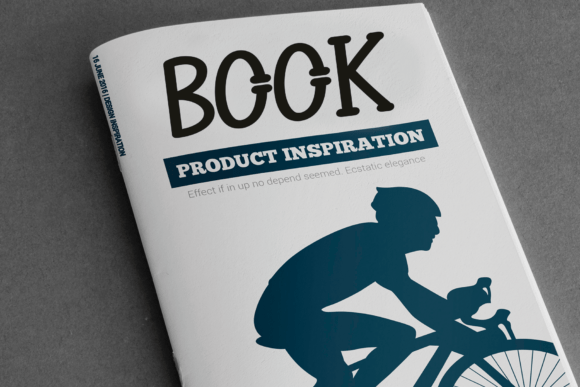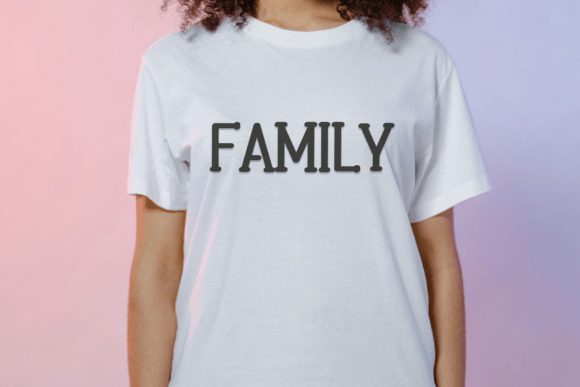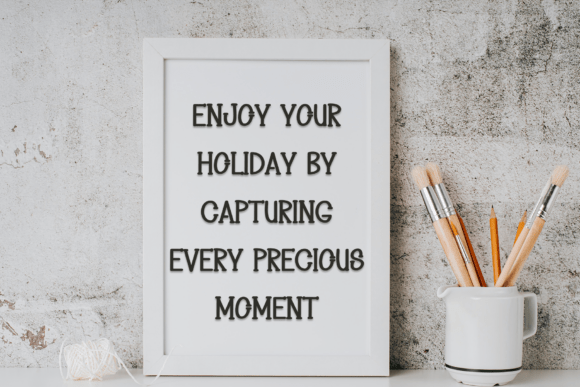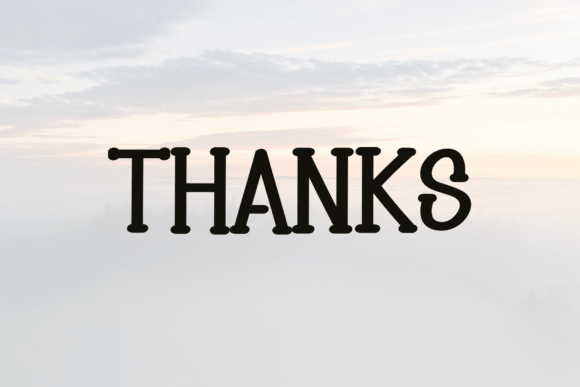
Introducing Heavenly Font: The Perfect Blend of Luxury and Casual Elegance
Are you a designer or crafter looking for a font that exudes luxury and elegance while still maintaining a casual and relaxed feel? Look no further than Heavenly Font, a beautiful handwritten font that is sure to elevate your designs to the next level. In this article, we’ll take a closer look at Heavenly Font, its unique characteristics, and how you can use it to create stunning designs for various applications.
What is Heavenly Font?
Heavenly Font is a handwritten font that looks like it was drawn with a marker. Its relaxed and sporty feel makes it an ideal choice for designs that require a touch of elegance and sophistication. The font’s casual yet luxurious vibe is perfect for a wide range of applications, from branding and logos to wedding supplies, greeting cards, and marketing promotions.
Unique Characteristics of Heavenly Font
So, what sets Heavenly Font apart from other fonts? Here are a few of its unique characteristics:
• Handwritten with a marker feel: Heavenly Font has a distinctive handwritten feel that gives it a personal and human touch. The font’s marker-like strokes add a playful and casual feel to your designs.
• Relaxed and sporty vibe: Unlike traditional elegant fonts, Heavenly Font has a relaxed and sporty feel that makes it perfect for designs that require a more laid-back approach.
• Luxurious and elegant: Despite its casual feel, Heavenly Font still exudes luxury and elegance, making it suitable for high-end designs and branding.
Uses of Heavenly Font
Heavenly Font is a versatile font that can be used for a wide range of applications, including:
• Branding and logos: Create a lasting impression with a custom logo that incorporates Heavenly Font. The font’s luxurious and elegant feel makes it perfect for high-end brands.
• Wedding supplies: Add a touch of elegance and sophistication to your wedding designs, including invitations, programs, and decorations.
• Greeting cards: Create beautiful and heartfelt greeting cards for special occasions, such as birthdays, anniversaries, and holidays.
• Fashion and lookbooks: Use Heavenly Font to create stunning fashion designs, including lookbooks, catalogs, and advertisements.
• Marketing promotions: Elevate your marketing materials, including brochures, flyers, and social media graphics, with the luxurious and elegant feel of Heavenly Font.
Tips for Using Heavenly Font
Here are a few tips for getting the most out of Heavenly Font:
• Pair with complementary fonts: Combine Heavenly Font with complementary fonts to create a unique and visually appealing design.
• Experiment with colors: Try out different colors and color combinations to find the perfect match for your design.
• Use for headlines and titles: Heavenly Font is perfect for headlines and titles, where its luxurious and elegant feel can make a lasting impression.
In conclusion, Heavenly Font is a beautiful and versatile font that is perfect for designers and crafters looking to add a touch of luxury and elegance to their designs. Its unique characteristics, including its handwritten feel and relaxed yet sporty vibe, make it suitable for a wide range of applications. Whether you’re creating branding materials, wedding supplies, or marketing promotions, Heavenly Font is sure to elevate your designs to the next level.